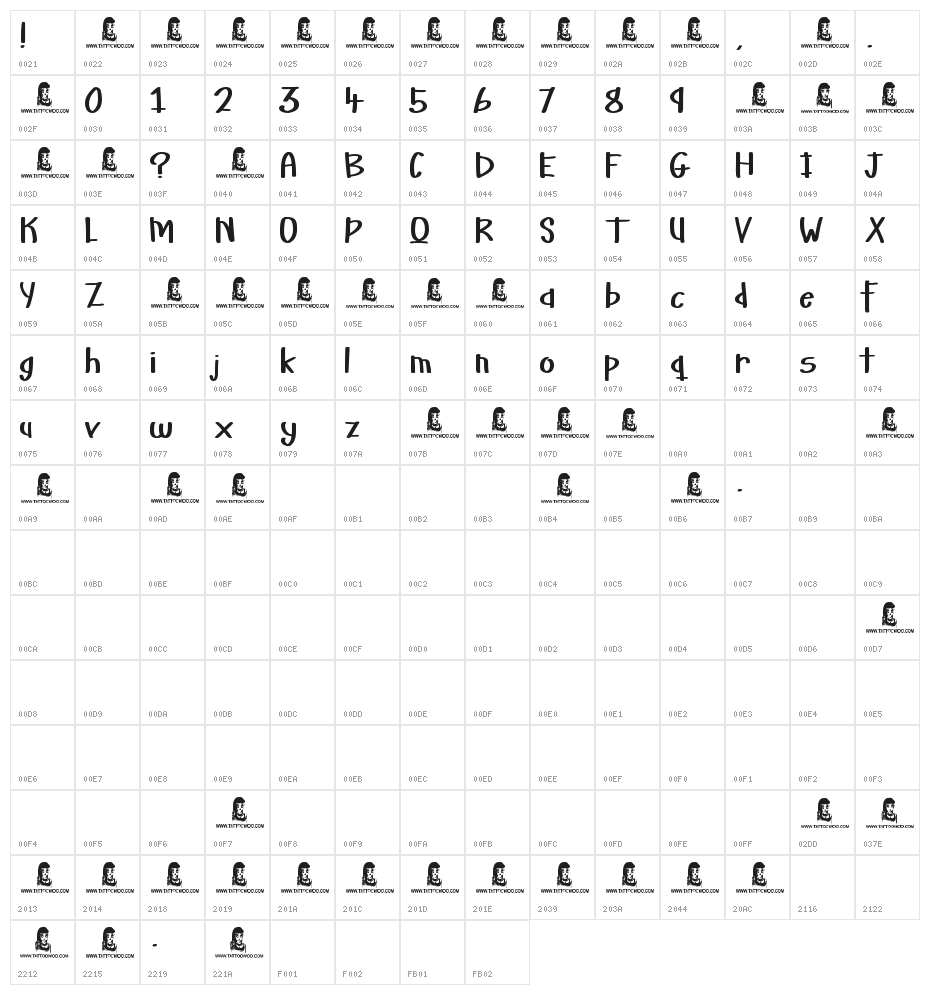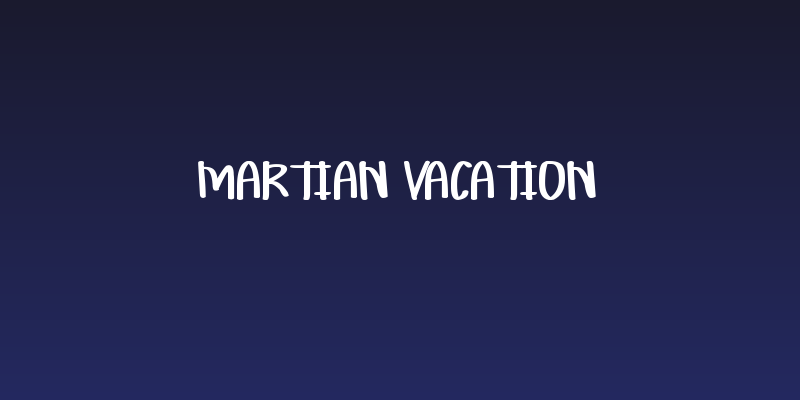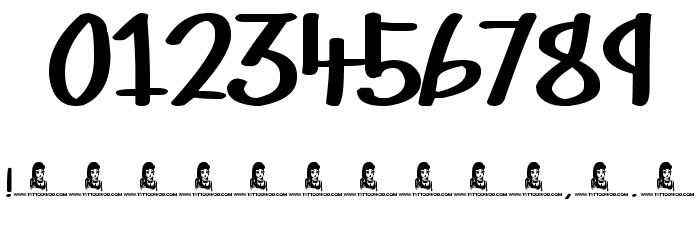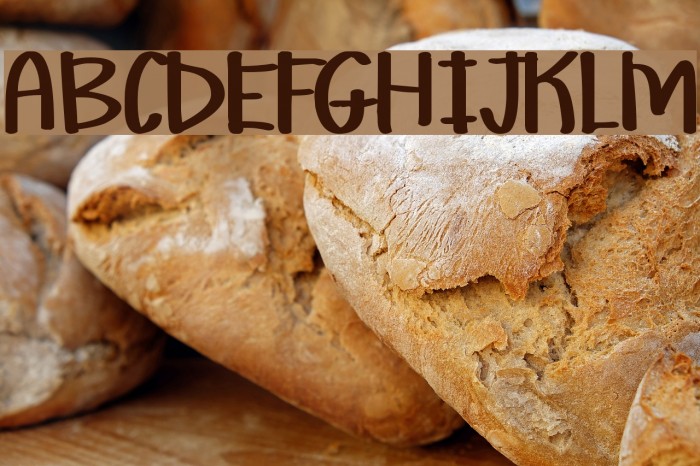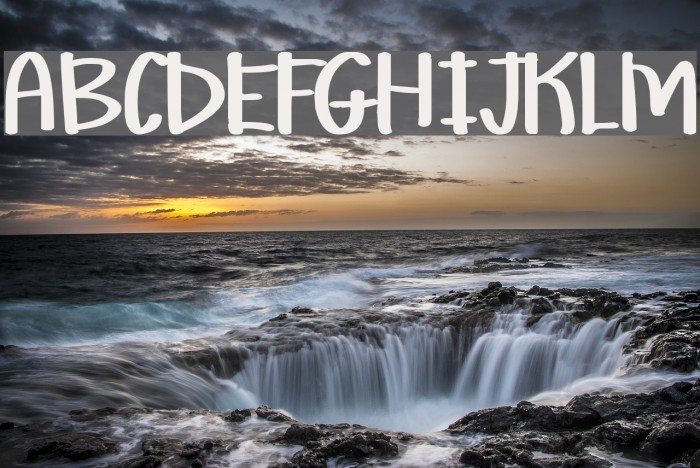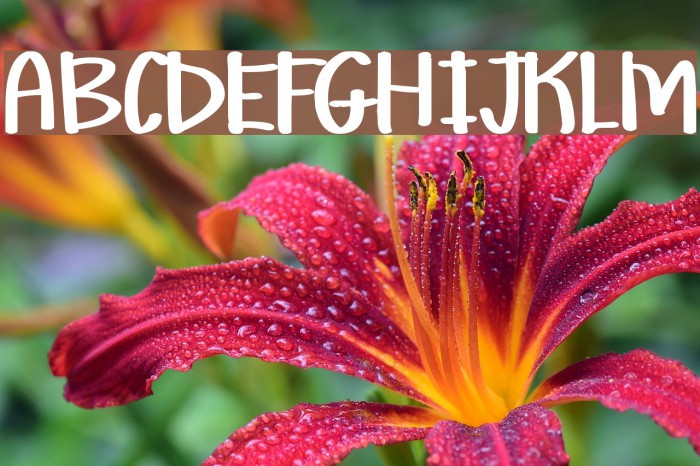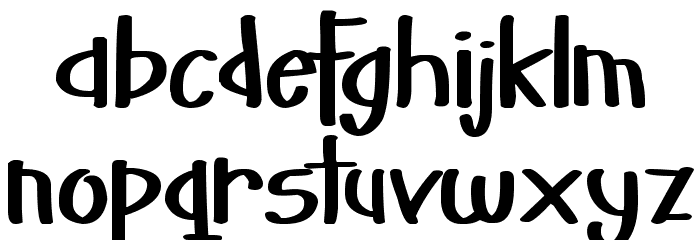
Martian Vacation Font
Martian Vacation Description
This playful and whimsical font features a hand-drawn style with a casual, relaxed feel. The letters are bold and rounded, with a slight tilt that adds a dynamic and energetic vibe. The uppercase and lowercase characters maintain a consistent flow, while the numerals and special characters complement the overall aesthetic. The font's unique character shapes and informal style make it ideal for projects that require a fun and approachable look.
| Overall Style | Playful |
| Proposed Projects | Perfect for children's books, playful branding, greeting cards, and creative posters. |